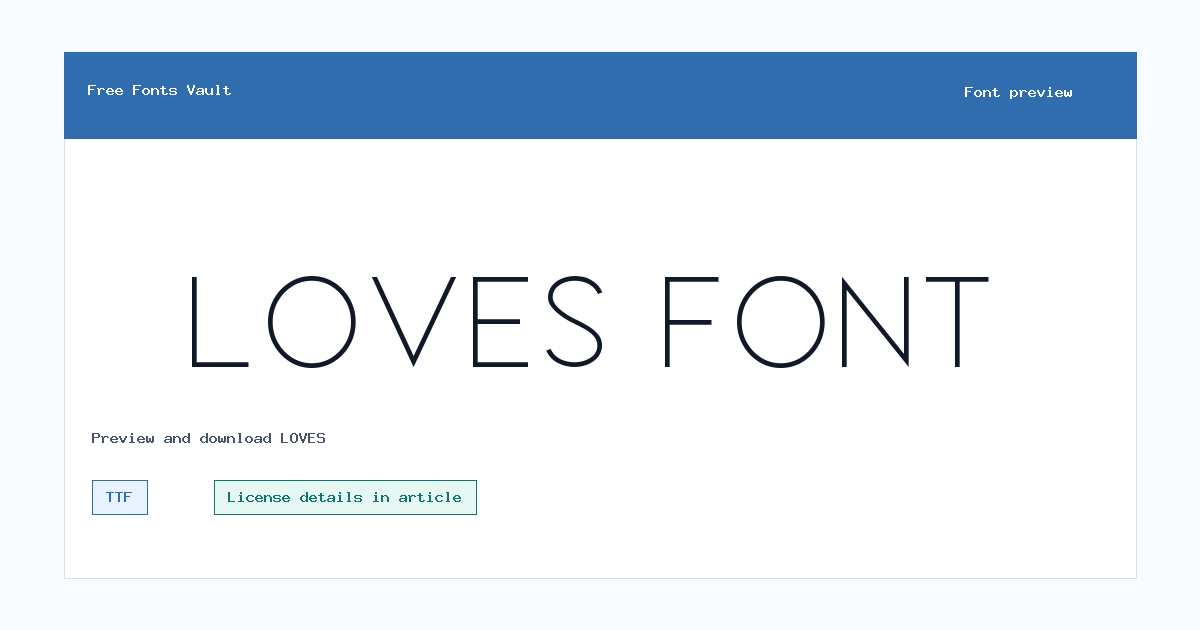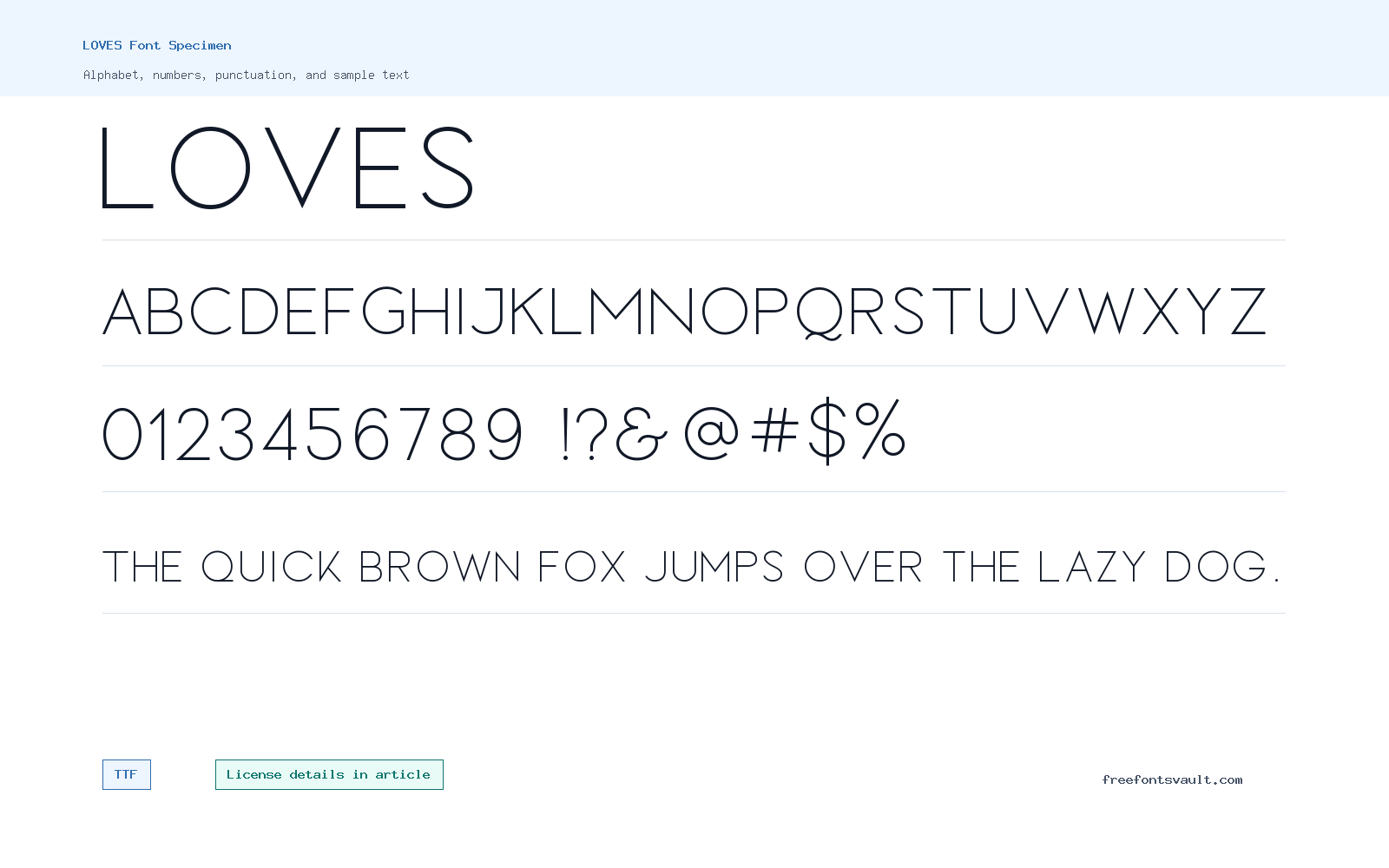
LOVES
- Designer Malik Wisnu
LOVES is a single-style TTF font credited to Malik Wisnu. It is best judged as a decorative display option for short text, especially when the design needs a warm or expressive title rather than a neutral reading face.
About LOVES Font
The download includes one regular-weight TrueType file, so LOVES is easy to test but should not be treated as a full family. Use it for names, short headings, greeting-card text, quote graphics, labels, invitations, and social posts where a few words can carry the style. If you need long descriptions or dense information, use another font for body copy and keep LOVES for emphasis.
Preview the exact words you plan to use. Decorative fonts can change character quickly when the text moves from a sample word to a real title, especially if the phrase includes repeated letters, punctuation, dates, or mixed capitalization. Check uppercase and lowercase separately, then test the line at the final size so you know whether the spacing still feels natural.
For image-based designs, LOVES can be tested over plain backgrounds first and then over photos or textures. If the shapes lose clarity, add contrast, increase the size, or reduce the text to one strong phrase. This keeps the decorative tone readable instead of making the design depend on effects.
- Best for short decorative text and title treatments
- Greeting cards, invitations, and personal messages
- Quote graphics, labels, and social media posts
- Short title text and name-based designs
- Personal mockups that need a softer display style
LOVES is credited to Malik Wisnu.
Use the preview with real wording, not just a sample phrase. If the design software offers fake bold or italic, avoid relying on those effects unless the result looks clean, because only one regular style is listed. Check mobile previews too, because thin details or tight spacing can look different once a social graphic is compressed.
Is LOVES good for paragraphs?
It is better for short headings, names, cards, and decorative accents than for long paragraphs.